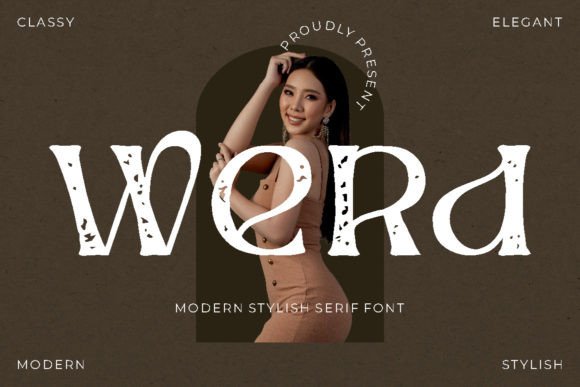
Embark on a typographical journey with Werd, the modern, stylish serif font that exudes elegance and luxury. Crafted by the skilled hands of putracetol, Werd is a visual masterpiece that's sure to captivate your audience.
Werd's versatility knows no bounds, making it the perfect choice for a wide range of design projects. Whether you're creating professional resumes, eye-catching flyers, heartfelt greeting cards, or sophisticated product packaging, Werd will elevate your designs with its impeccable style.
Experience the allure of Werd's carefully crafted characters, each meticulously designed to convey a sense of timeless beauty. Its elegant curves and sharp serifs dance harmoniously on the page, creating a visual symphony that will leave your readers spellbound.
Werd is not just a font; it's an artistic expression that breathes life into your words. Whether you're designing a book cover, a printed quote, or a captivating logotype, Werd will transform your words into works of art.
Immerse yourself in the world of Werd and discover the endless possibilities it holds. From apparel designs to album covers, Werd is the ultimate choice for designers seeking to make a lasting impression. With its multi-language support, Werd breaks down language barriers, allowing your designs to reach a global audience.